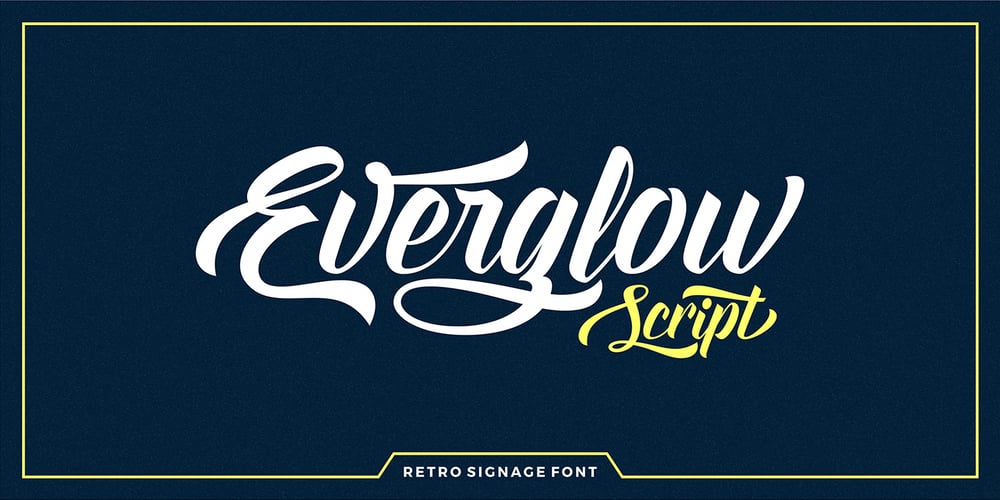
Everglow Script
Everglow Script font
Everglow Script Font Family was designed by published by Seniors Studio. Everglow Script contains 1 styles and family package options. Everglow Script is retro signage font, bold and clean. There are so many variations on each character. Include Opentype stylistic alternates, standard ligatures and multilingual support. You are able to create so many different typographical layouts easily and quickly. Make sure you use OpenType savvy program and simply open Glyph Palette to access all of the glyphs. This font is suitable for t-shirts, signage, logos, branding, packaging etc.